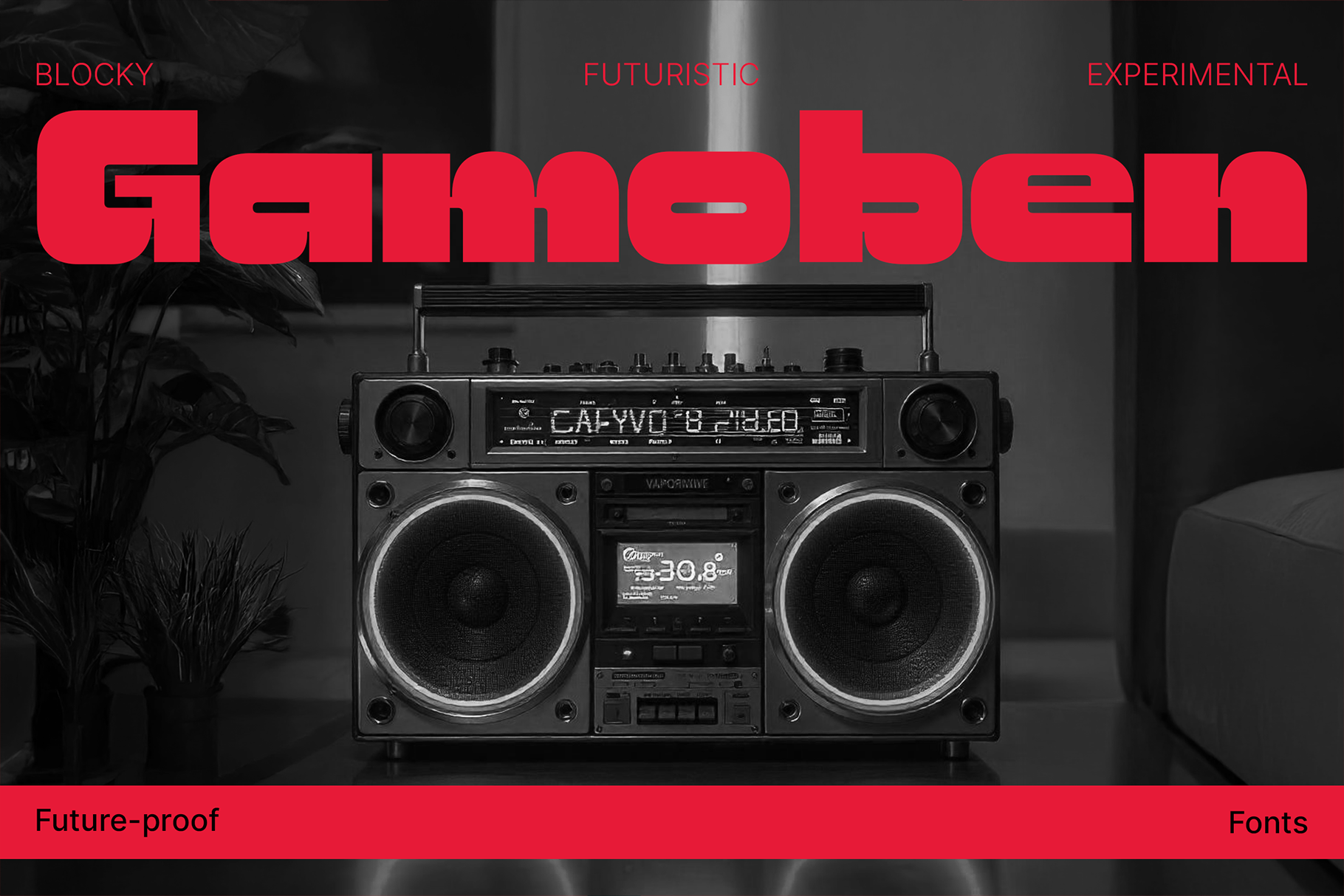
Gamoben - Futuristic Blocky Fonts
Step into the future with Gamoben, a boundary-breaking typeface forged in the spirit of retro-tech nostalgia and forward-facing design. With each letter crafted like a machine part from a parallel timeline, Gamoben delivers chunky forms, geometric boldness, and experimental flair that commands attention in any layout.
Whether you're building a sci-fi poster, a brutalist web interface, a game title, or branding for tech-driven products — Gamoben doesn’t whisper. It roars.
It’s not just a font. It’s a statement of intent. A future-proof weapon for designers who dare to break the mold.
- Unique letterforms
- Futuristic energy
- Techno vibes with a retro soul